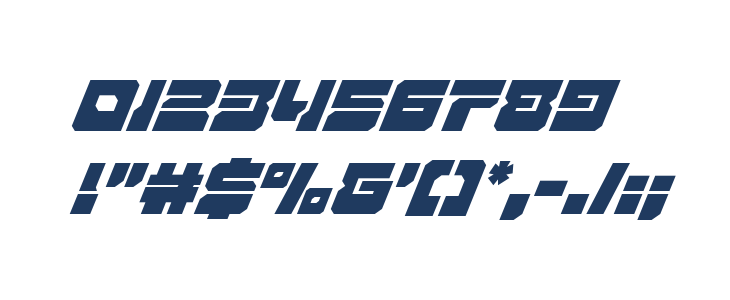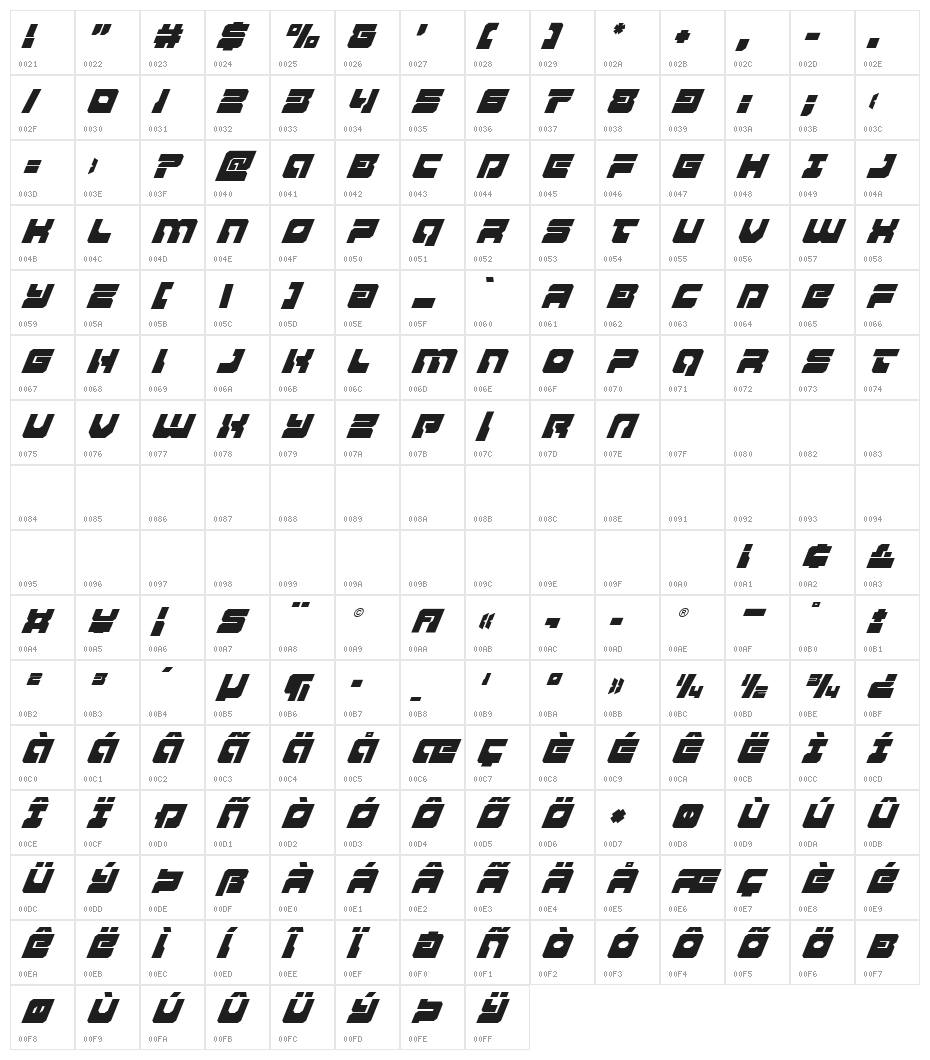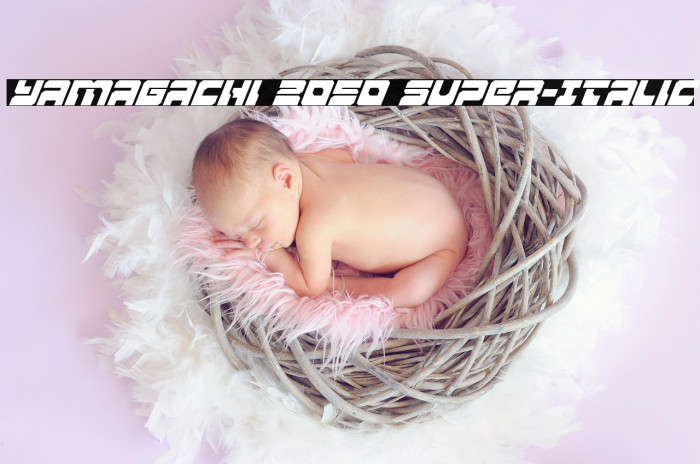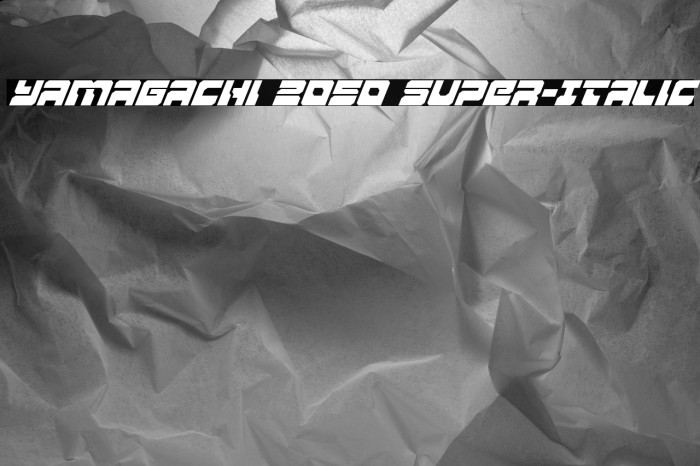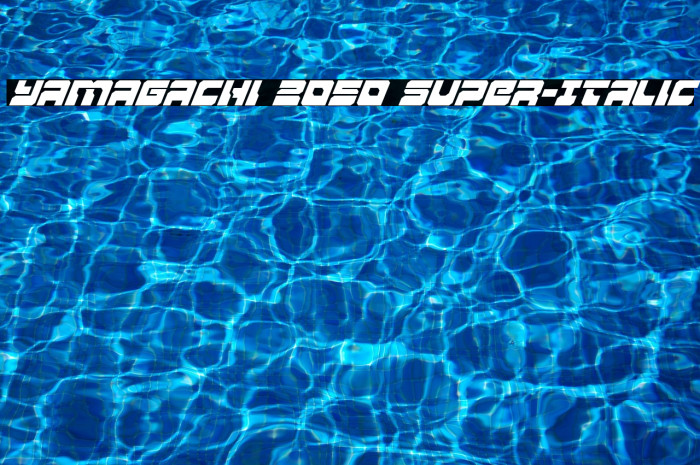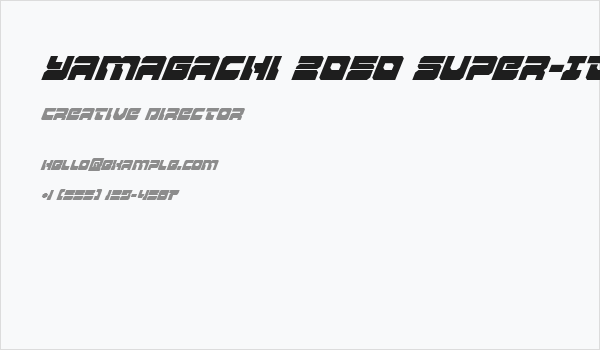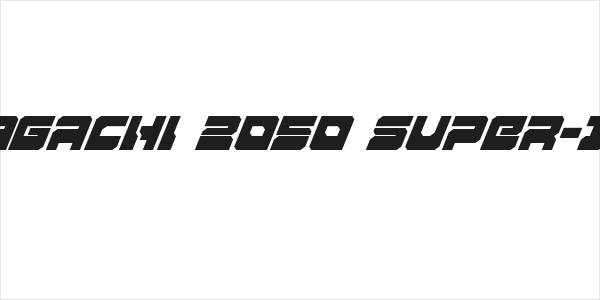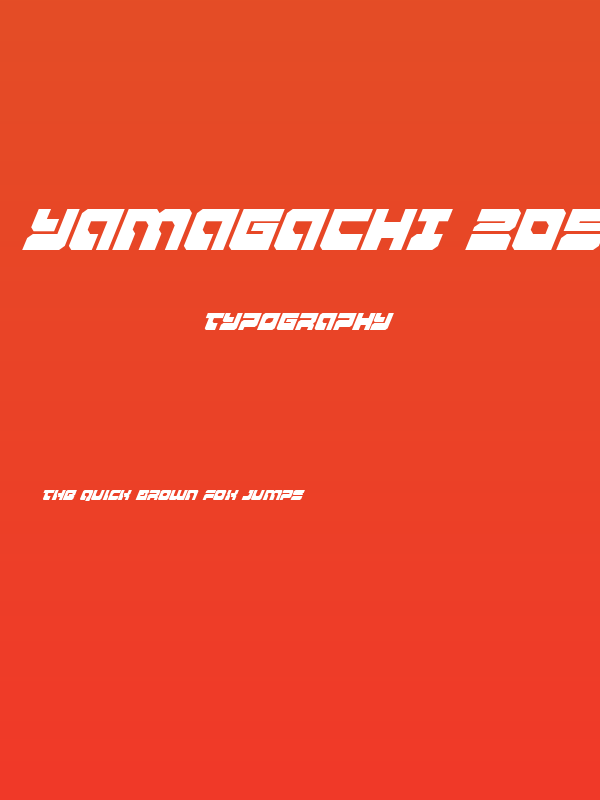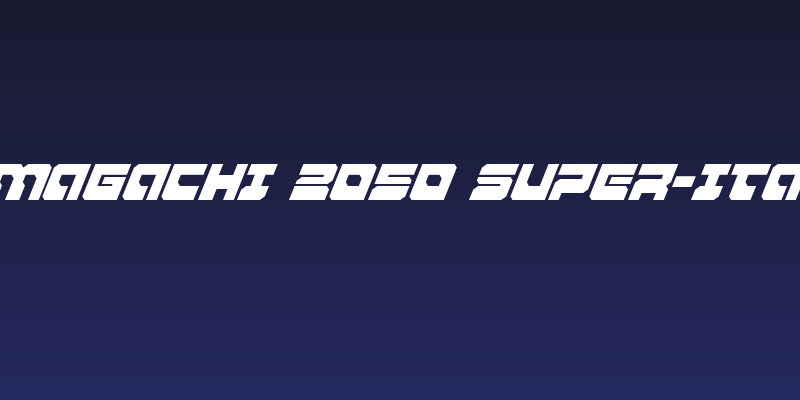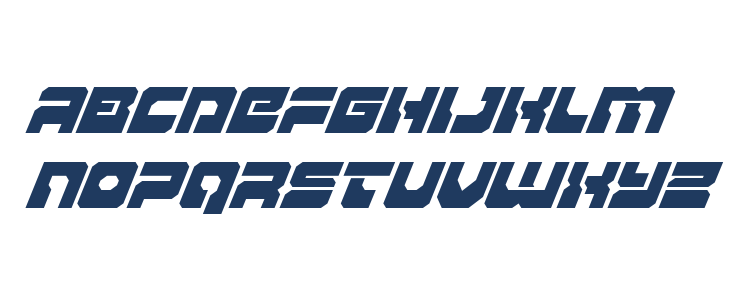
Yamagachi 2050 Super-Italic Font
Yamagachi 2050 Super-Italic Description
This font features a futuristic and angular design, characterized by its bold and italicized style. The letters are sharply cut with a distinct geometric influence, giving it a modern and edgy appearance. The uppercase and lowercase letters maintain a consistent style, with a strong emphasis on diagonal lines and sharp corners. The numbers and special characters follow the same design principles, ensuring uniformity across all glyphs. This font's unique style makes it stand out, suitable for projects that require a bold and modern aesthetic.
| Proposed Projects | Ideal for sci-fi themed projects, video game titles, technology branding, and modern posters. |